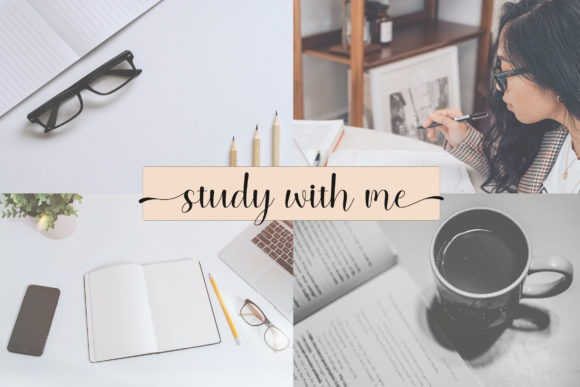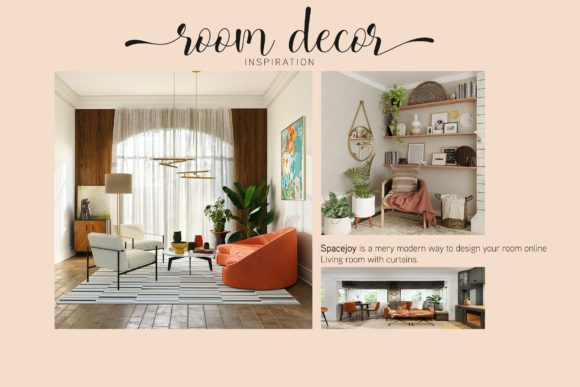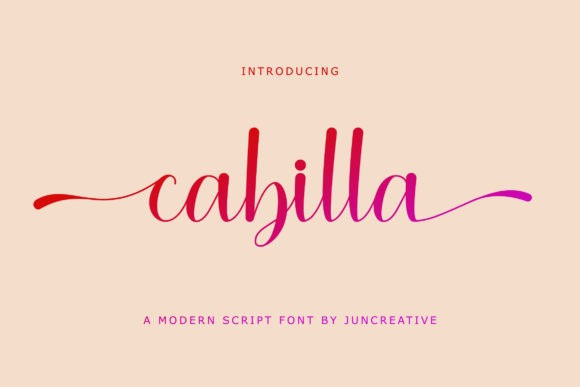
Cabilla Font
Cabilla Script Font is a beautiful light handwritten font with a unique feel and a stunning impact. It will add a luxury spark to any design project that you wish to create! This font is PUA encoded which means you can access all of the amazing glyphs and ligatures with ease!